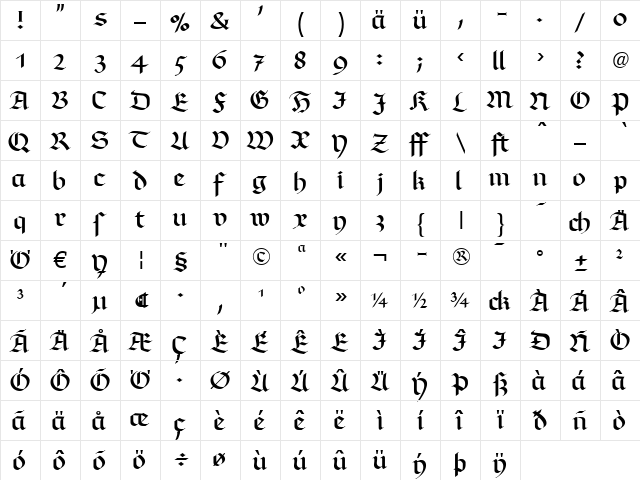
RichmondFraktur LT Regular
Design Context for RichmondFraktur LT Typeface
RichmondFraktur LT channels the dramatic heritage of Fraktur and Gothic scripts, bringing a sense of historical gravitas to any design. Its slender proportions lend an understated elegance to any composition.
Well-suited to band logos, craft beer branding, tattoo lettering, and heritage-themed identities.
Font Pairing: Pair with a clean neutral sans-serif for body copy to let RichmondFraktur LT's character lead without overwhelming the composition.
Pro Tip: Use RichmondFraktur LT sparingly at large sizes. Even a single word set in blackletter can define the visual register of an entire design.